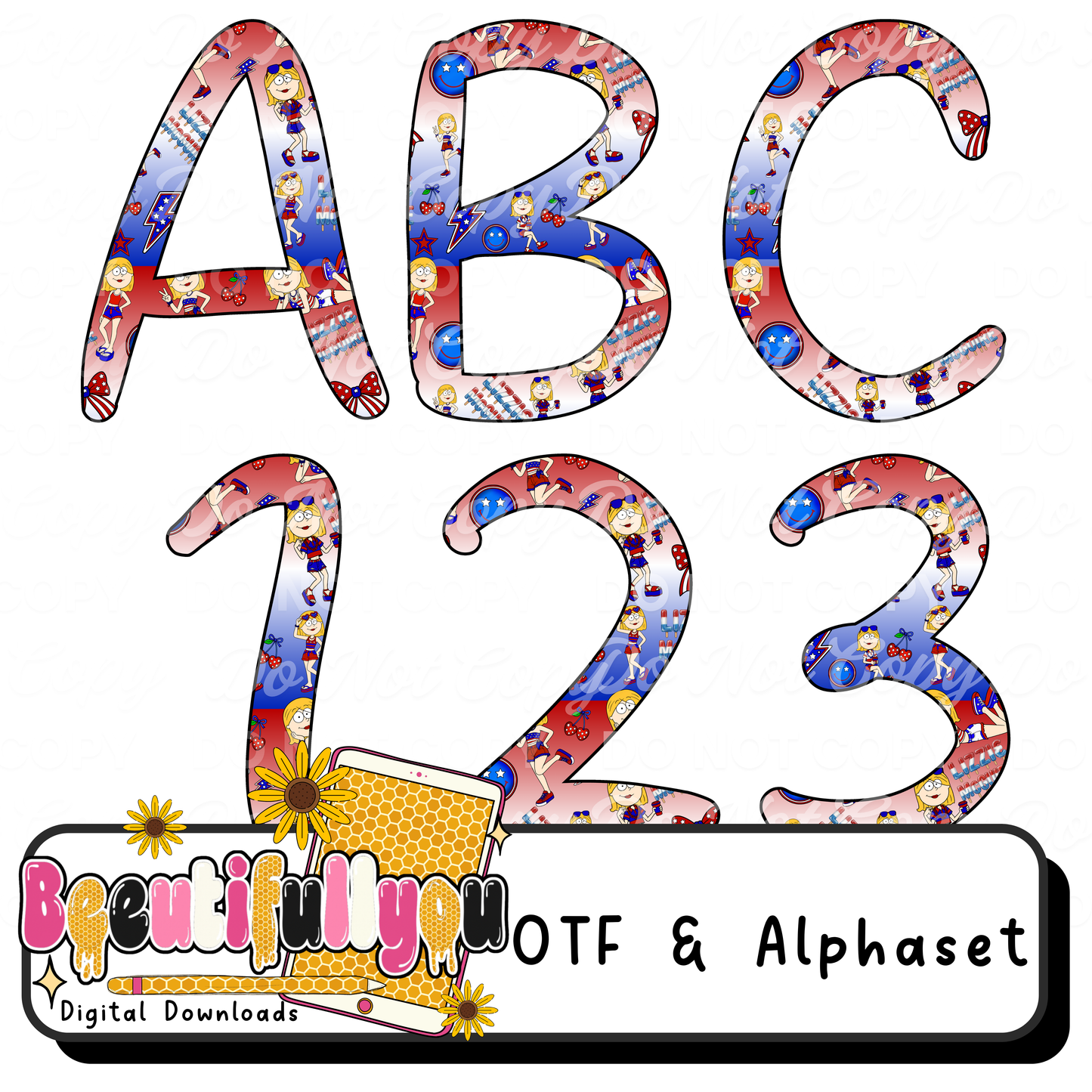
Patriotic OTF Font + Alphabet PNG | 4th of July Font Bundle | USA Red White Blue Letters | Sublimation & DTF Design Font
✨ Your go-to patriotic font for bold, high-selling designs 🇺🇸
This fun, red white & blue themed font is perfect for creating eye-catching 4th of July graphics, shirt designs, and boutique-ready products 🔥